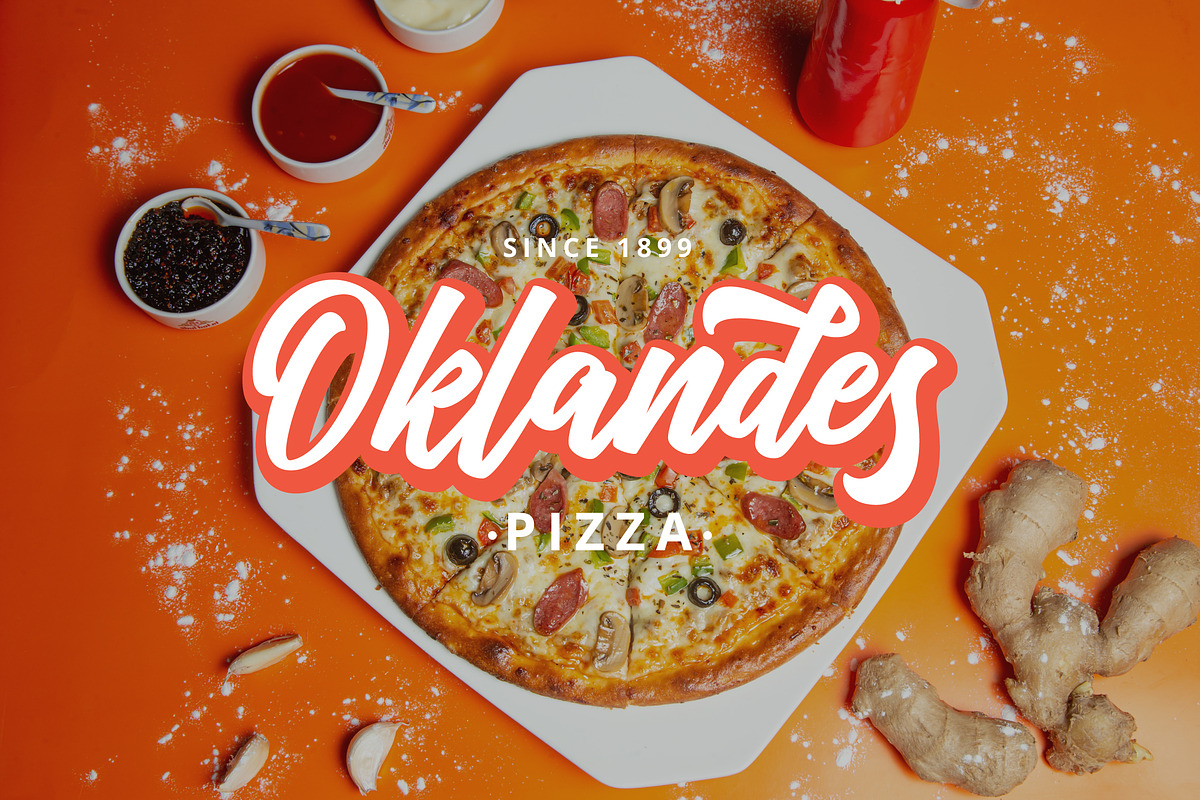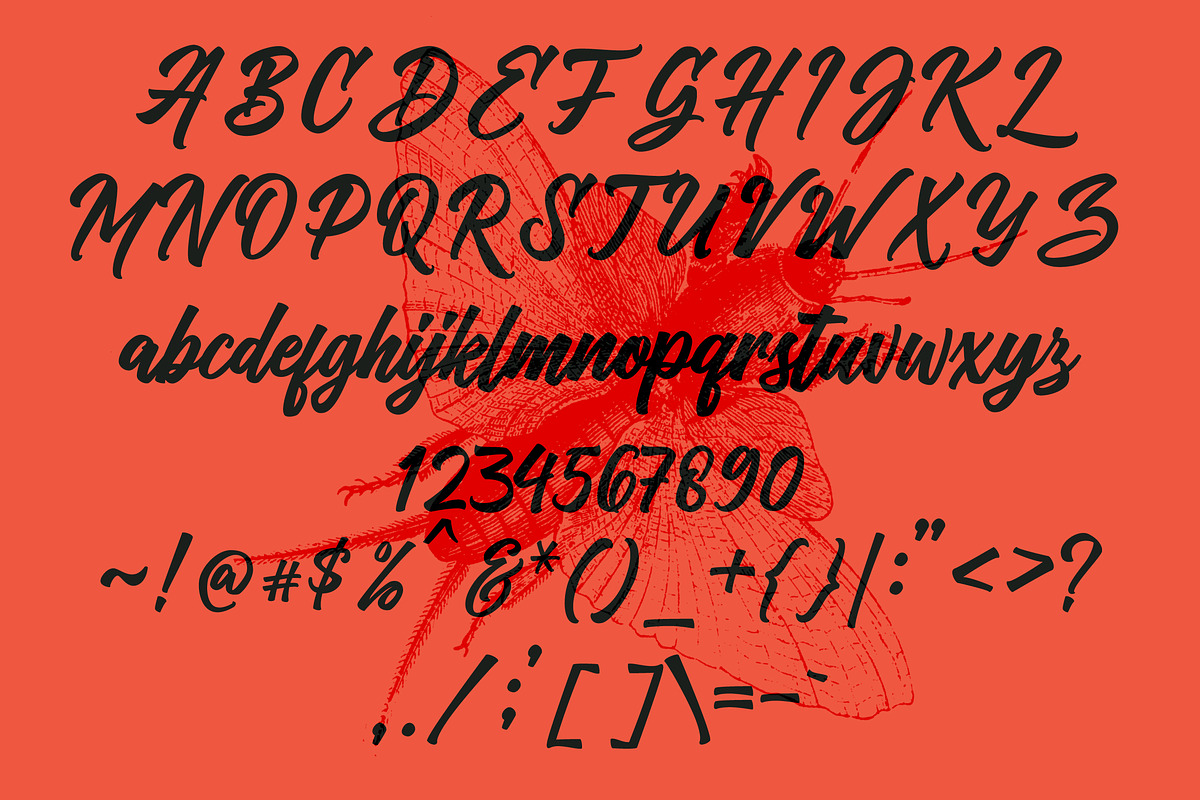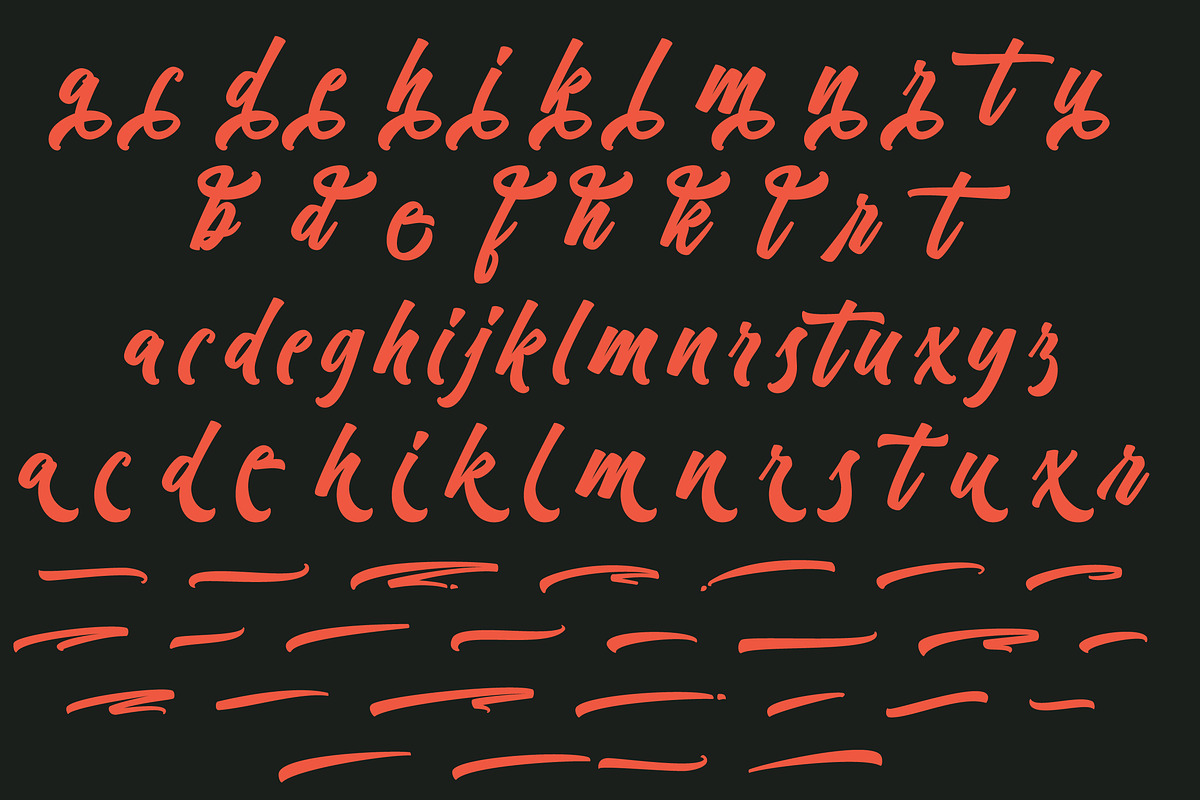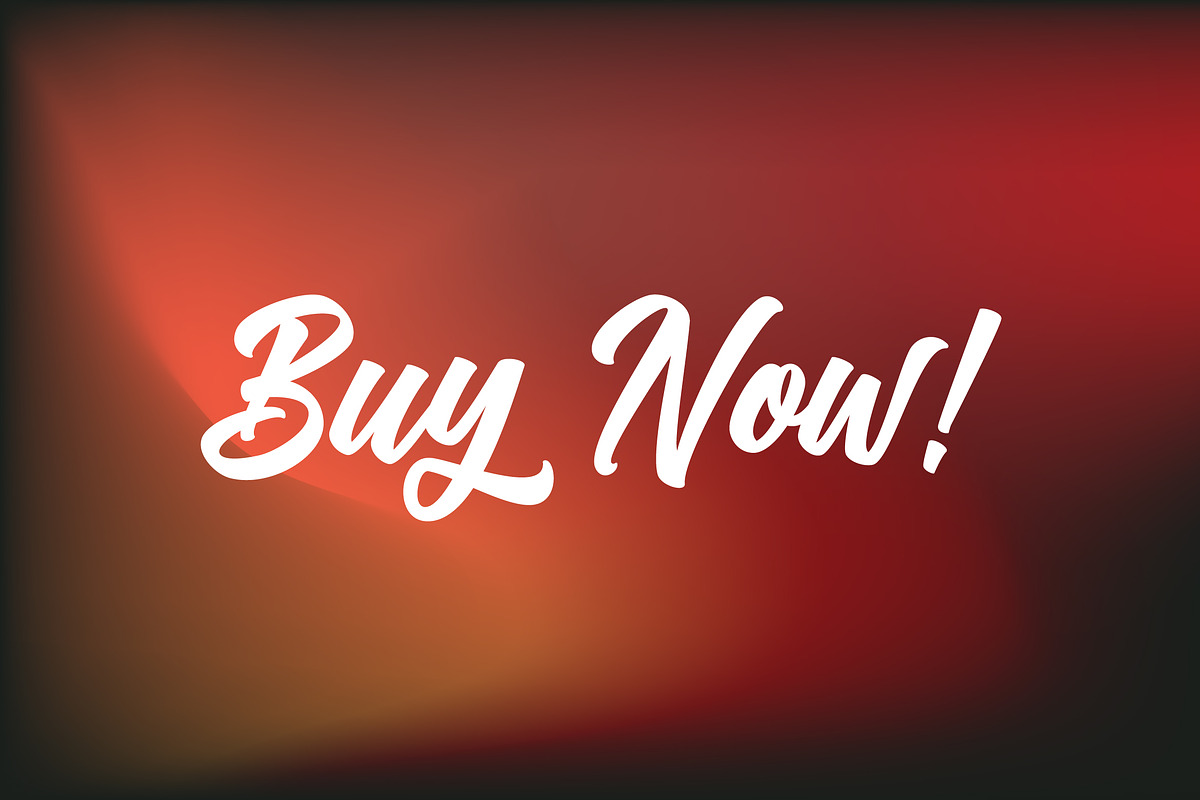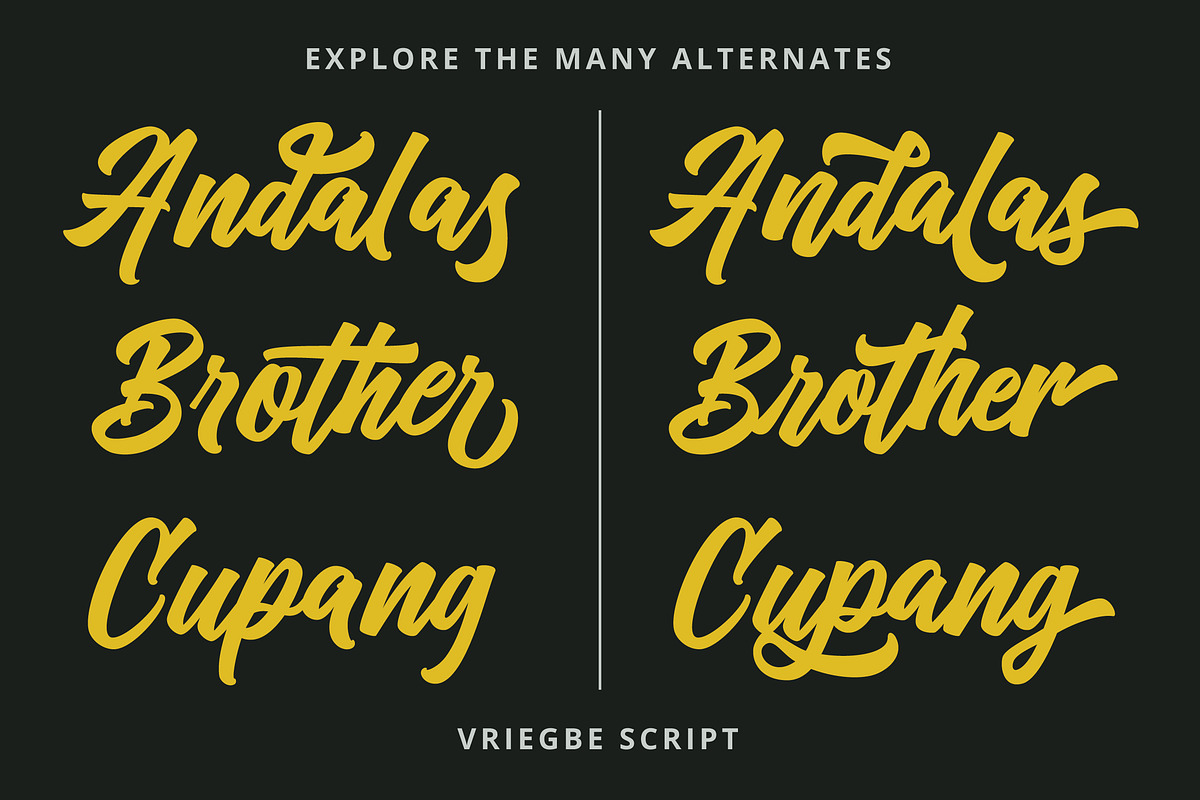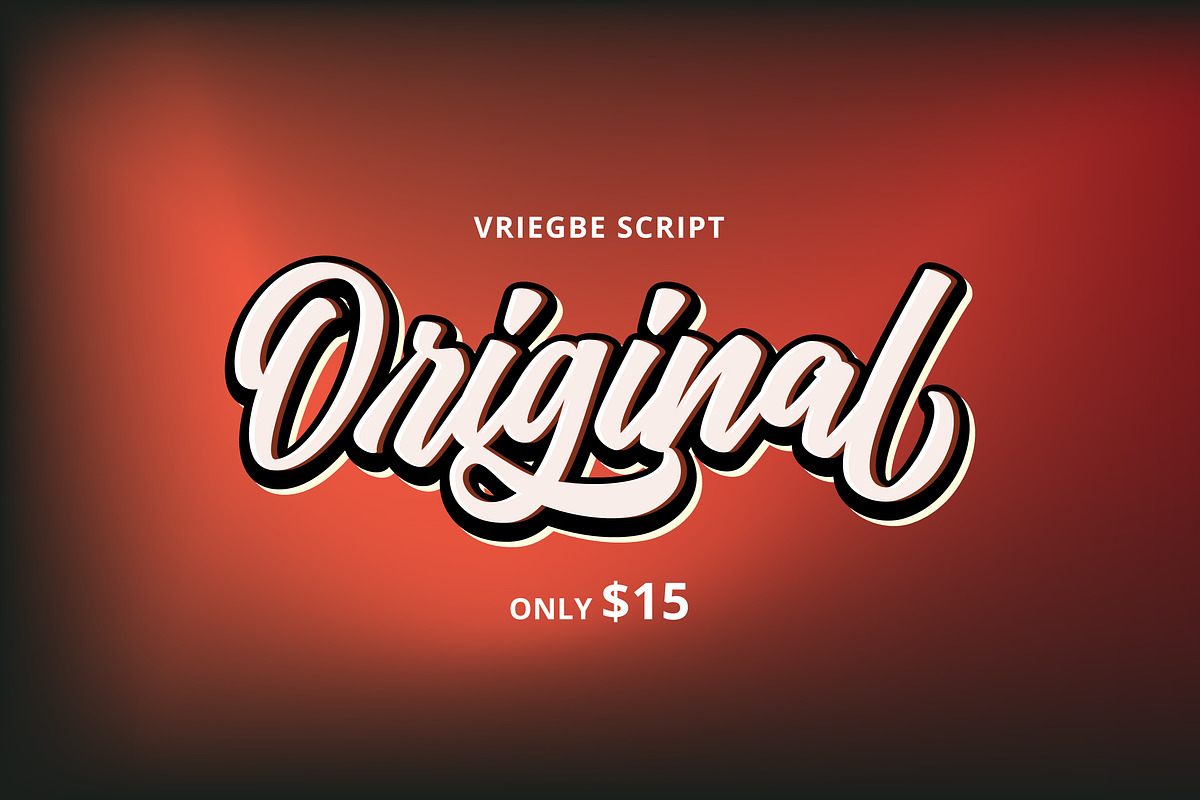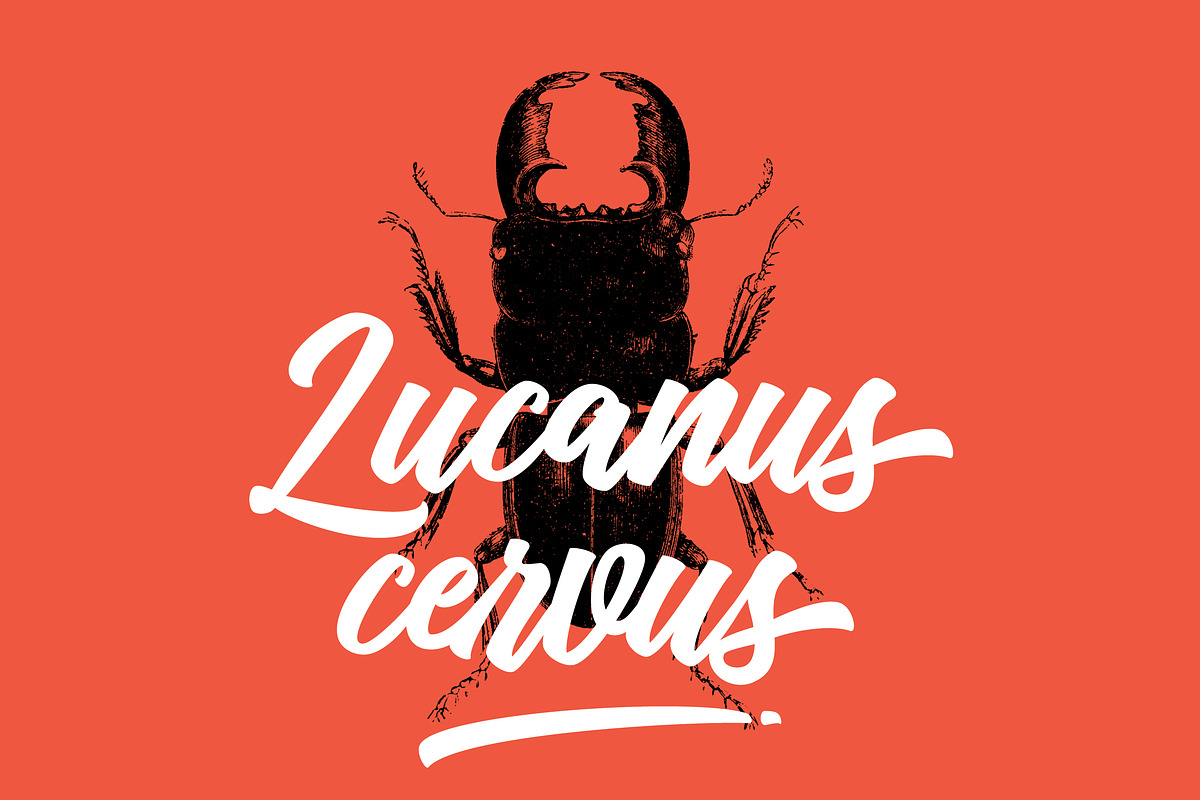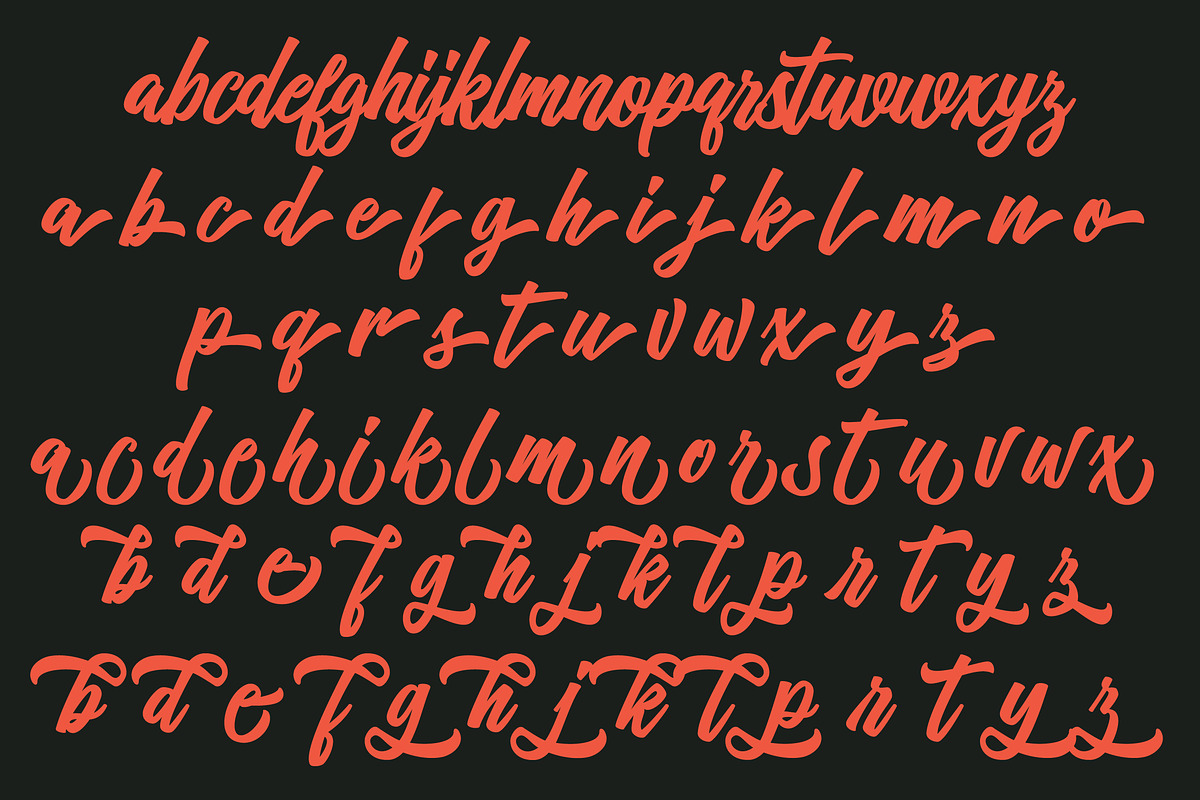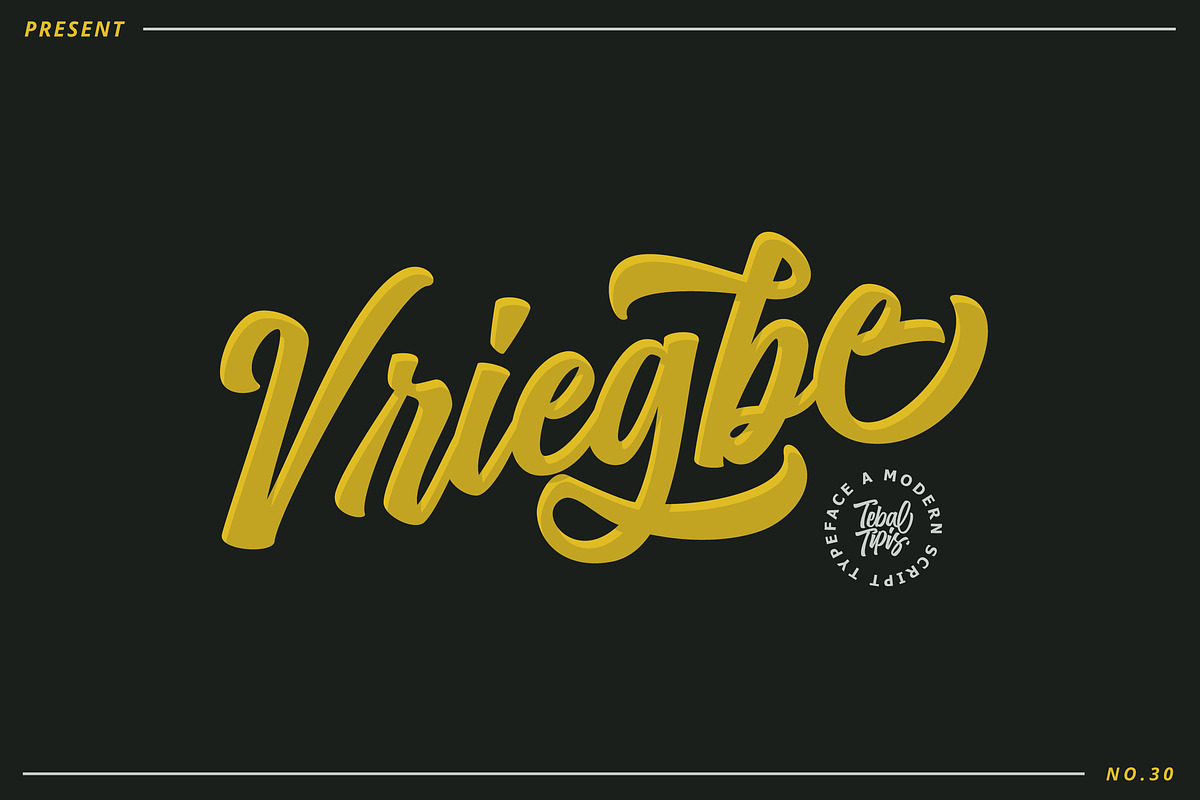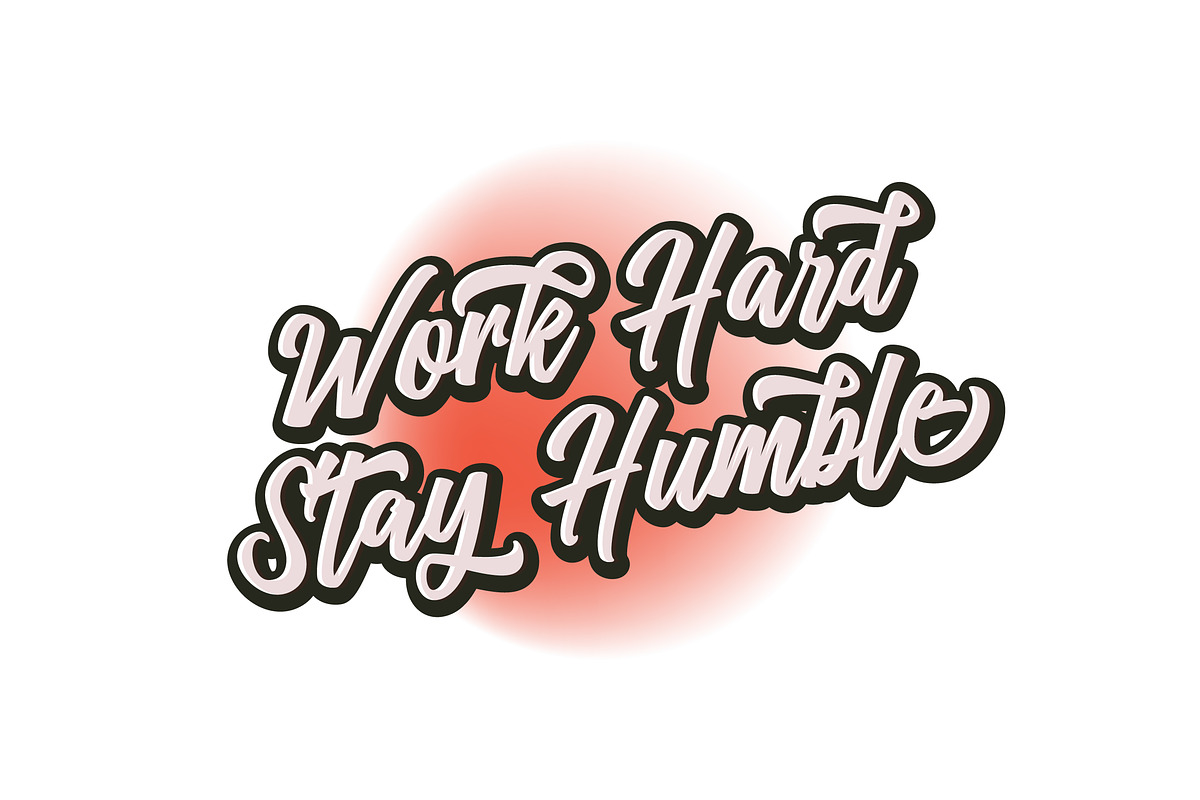
Vriegbe - Bold Script Logotype
Introducing new latest from TebTipsudio, Vriegbe Script is a typeface with personality. You can use it as a logo, badge, insignia, packaging, headline, poster, etc The alternative characters in this font were divided into several OpenType features such as Stylistic Alternates, Stylistic Sets, and Ligature. The OpenType features can be accessed by using OpenType program such as Adobe Illustrator, Adobe Photoshop, and Adobe InDesign.